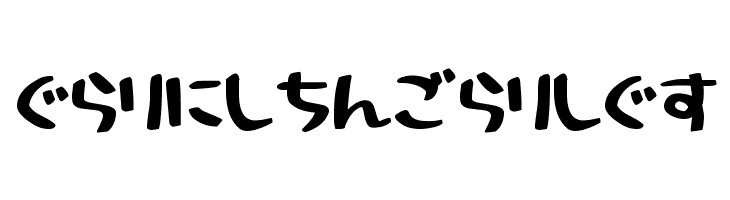
A playful, bold font with rounded edges and a whimsical style.
A playful, bold handwritten font with a lively and friendly appearance.
A playful handwritten font with smooth, rounded strokes and a casual style.